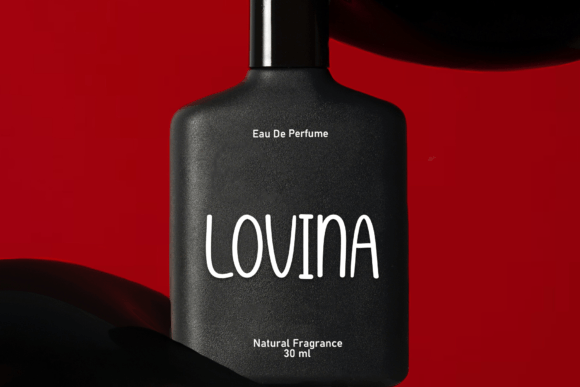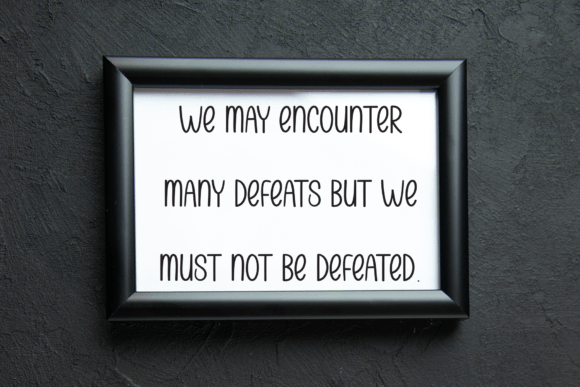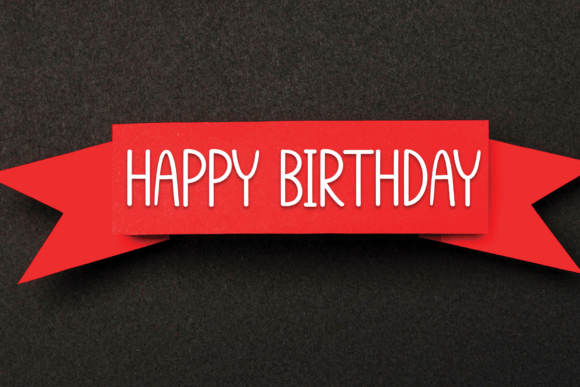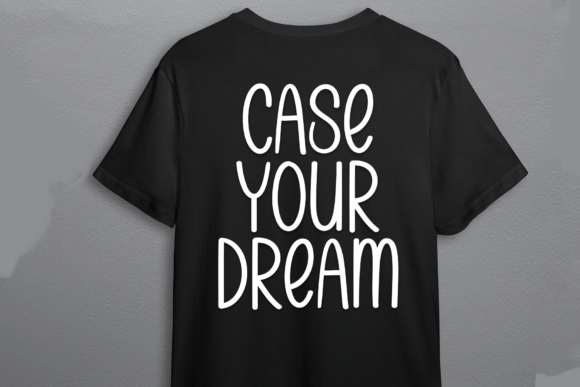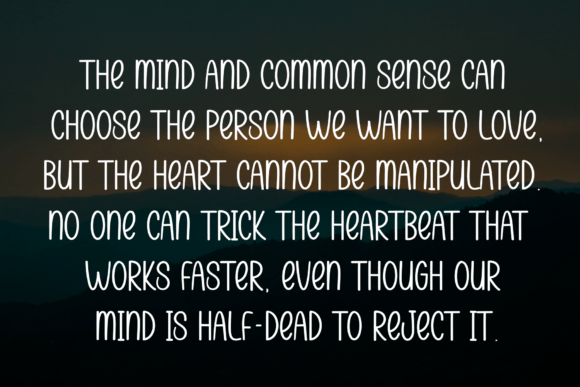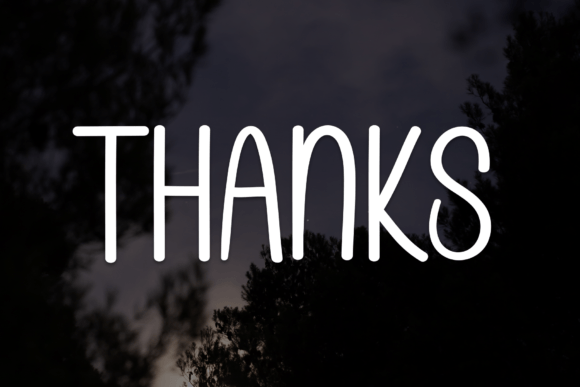
Good Night Font: Where Whimsy Meets Warmth
As you sit at your desk, surrounded by half-finished projects and scattered design ideas, the question lingers: how do I add that special something to make my design truly unforgettable? Maybe you’re crafting a heartfelt wedding invitation, or perhaps you’re looking for the perfect font to personalize a birthday card. Whatever the occasion, the right font can make all the difference.
Enter Good Night Font, a playful handwritten display font that brings a touch of whimsy and warmth to your design landscape. With its sweet and friendly demeanor, this font is perfect for adding a lively and engaging touch to any creative project. Whether you’re a seasoned designer or a hobbyist, Good Night Font is an invaluable tool for infusing your designs with a sense of joy and personality.
Good Night Font Key Features
- Unique Characteristics: The Good Night font features a unique blend of modern and vintage elements, with elegant lines and subtle texture, making it ideal for creating a soothing and relaxing atmosphere.
Good Night Font Review
As a designer, I was excited to try out the Good Night Font, but my experience was a mixed bag. ✨ One thing that really stood out to me was the unique and soothing aesthetic of the font. It’s perfect for creating a calming atmosphere in designs, especially for bedtime-themed products or services.
- Unique and soothing aesthetic
- Perfect for bedtime-themed designs
- Good for creating a calming atmosphere
However, there are some limitations to consider. ⚠️ The font’s legibility can be an issue, especially at smaller font sizes. I found that the letters can become blurry and difficult to read, which can be a problem in certain design contexts. Additionally, the font’s compatibility with different devices and operating systems can be a bit spotty.
- Legibility issues at smaller font sizes
- Compatibility issues with different devices and operating systems
Overall, the Good Night Font is a nice addition to a designer’s toolkit, but it’s not without its limitations. If you’re looking for a font that’s perfect for creating a soothing atmosphere, it’s worth considering. However, be aware of the potential issues with legibility and compatibility.
Tips: Use the Good Night Font to create a warm and inviting atmosphere in your designs. Experiment with different font sizes and colors to find the perfect balance.
Tips: Use the Good Night Font to add a touch of elegance to your designs. Experiment with different font styles and combinations to create a unique look.
Tips: Use the Good Night Font to create a professional and polished look in your presentations and documents. Experiment with different font combinations and styles to find the perfect fit.
The Good Night Font is perfect for:
- Personalized gifts and decorations